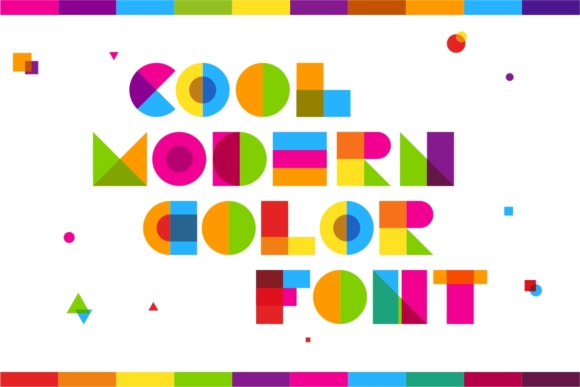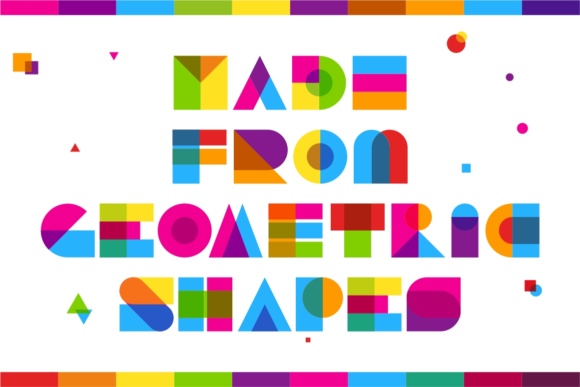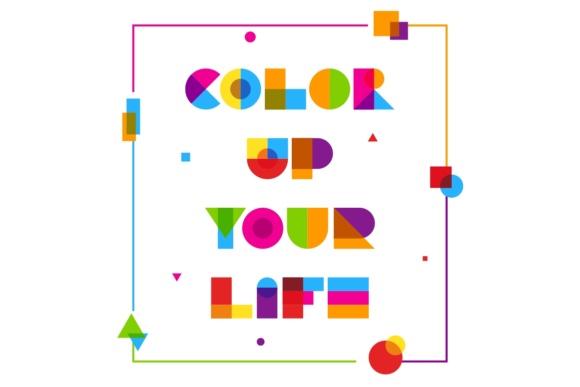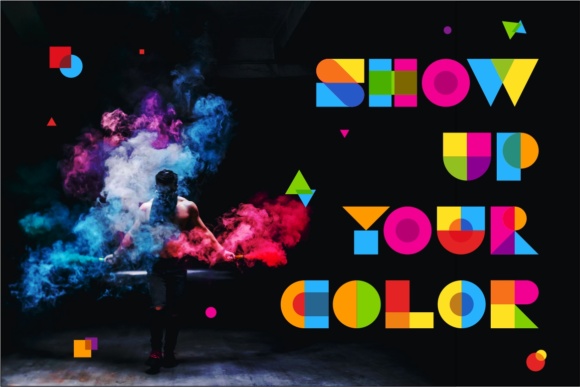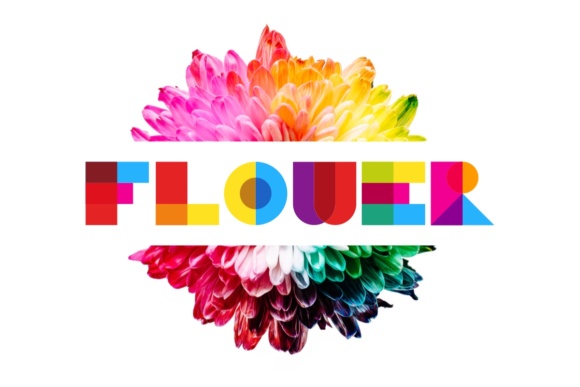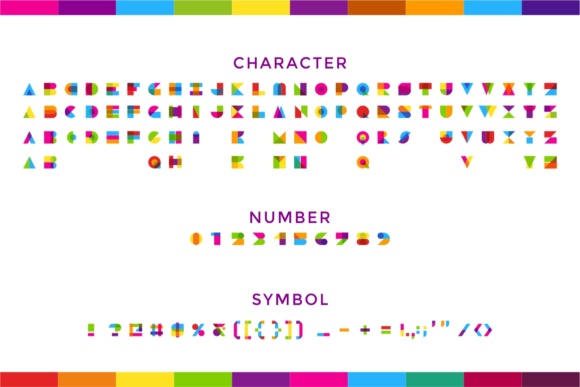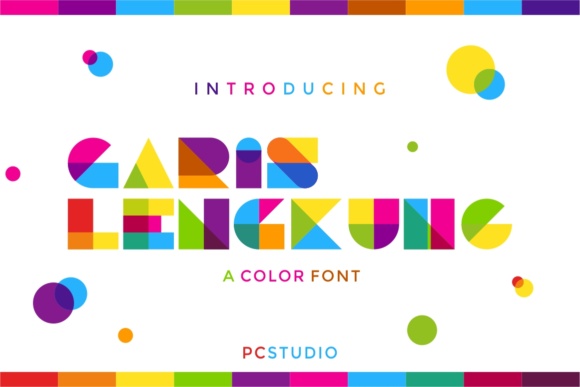
Garis Lengkung Font: A Vibrant and Playful Typeface for Modern Designs
Are you looking for a unique and modern typeface to elevate your designs? Look no further than the Garis Lengkung font! This colorful typeface is crafted from basic geometric shapes, including circles, squares, triangles, and semicircles, making it a standout addition to any design project. In this article, we’ll dive into the features and benefits of the Garis Lengkung font, as well as provide guidance on how to use this versatile typeface.
A Colorful and Geometric Design
The Garis Lengkung font is a true showstopper, boasting a vibrant color palette that adds a playful touch to any design. The typeface is constructed from simple geometric shapes, which are then overlaid with colors to create a modern and eye-catching effect. This unique design approach makes the Garis Lengkung font perfect for designs that require a bold and attention-grabbing typeface.
Whether you’re a professional designer or a crafter looking to add a personal touch to your projects, the Garis Lengkung font is an excellent choice. Its unique and playful design makes it ideal for a wide range of applications, from branding and advertising to crafting and DIY projects. With the Garis Lengkung font, you can add a pop of color and personality to your designs, setting them apart from the crowd.
Tips for Using the Garis Lengkung Font
To get the most out of the Garis Lengkung font, here are a few tips to keep in mind:
- Experiment with different colors and combinations to find the perfect look for your design.
- Use the Garis Lengkung font to add a playful touch to your designs, such as in headings, titles, or quotes.
- Combine the Garis Lengkung font with other typefaces to create a unique and visually appealing design.
- Don’t be afraid to get creative and try out new and innovative ways to use the Garis Lengkung font.
In conclusion, the Garis Lengkung font is a vibrant and playful typeface that’s perfect for designers and crafters looking to add a unique touch to their projects. With its geometric design, colorful overlay, and compatibility with popular design software, this font is sure to become a favorite in your design arsenal. So why wait? Download the Garis Lengkung font today and start creating stunning designs that showcase your creativity and style!
- Colorful and geometric design
- Constructed from basic shapes, including circles, squares, triangles, and semicircles
- Perfect for designers and crafters looking for a unique and playful typeface
By incorporating the Garis Lengkung font into your design workflow, you’ll be able to create stunning and eye-catching designs that showcase your creativity and style. So don’t hesitate – get creative with the Garis Lengkung font today and take your designs to the next level!